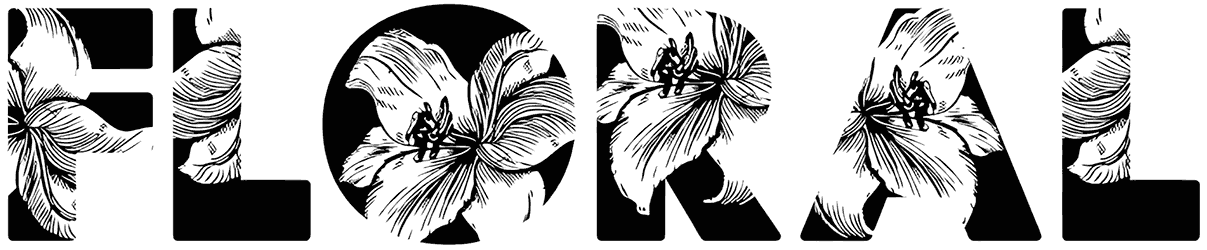
Floral Font
Floral is a flower font created according to current trends and lends an elegant feeling to your writing. Capital letters in this decorative font can provide you with two different options that cover the lack of small letters and numbers well. That’s why creative designers always have a space for this font in their treasury to give their posters, advertisements, and headlines a different feel.
Layered SVG color font.